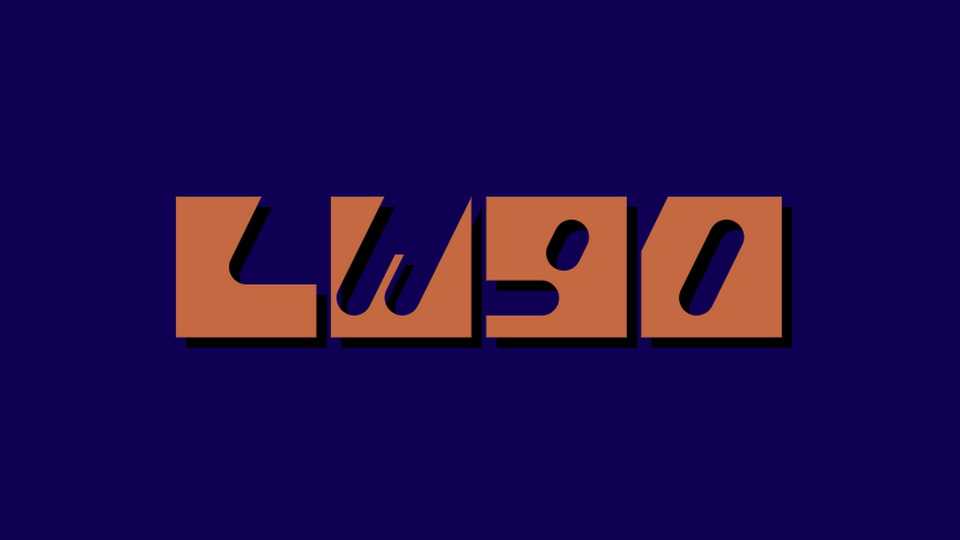
DOwnload LW90 font, a bold display typeface that has been designed for use in titles and experimental graphic design. LW90 has limited support for Latin scripts and numerical glyphs, as well as basic punctuation